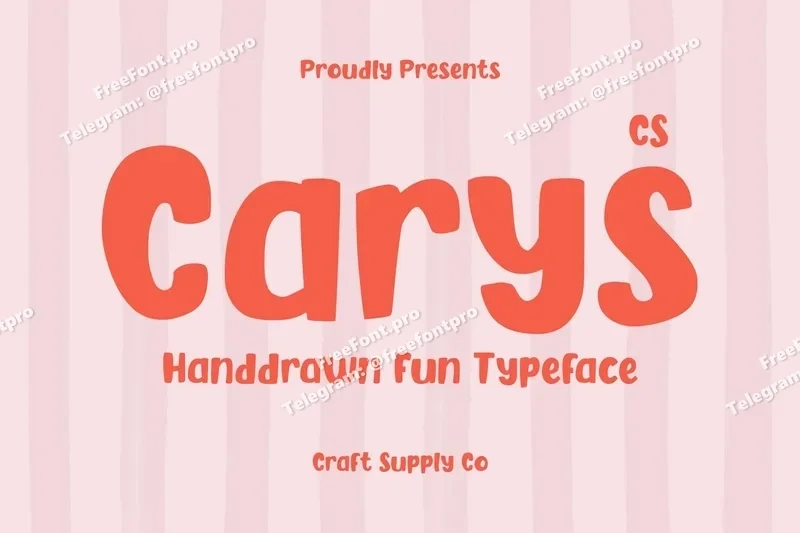
Carys – Playful Display Font
CS Carys – Playful Energy in Every Stroke: Fun Display Font with Bold and Friendly Shapes
Vibrant Personality for Youthful Designs This is a Playful display font that captures the spirit of fun and creativity. Its bold strokes and friendly curves radiate energy, making every letter feel alive and expressive. Designed to evoke joy and excitement, this font is perfect for youth-oriented projects that aim to stand out with confidence and charm.
Rounded Forms for a Cheerful Impression Every curve in this font is crafted with intention smooth, rounded, and approachable. These shapes give the font a cheerful, welcoming personality that connects instantly with viewers. Whether it’s for greeting cards, playful posters, or children’s materials, its soft yet strong structure ensures clarity and delight in every use.
Versatile for Fun Branding and Creative Concepts From casual logos to lifestyle products, this font adapts seamlessly across creative projects. Its balanced proportions maintain readability while its bold form adds personality, making it a great choice for designers seeking a typeface that’s both practical and full of life.
Perfect for Modern, Joyful Communication This font brings modern energy and warmth to your visual messages. It’s more than just a typeface it’s a voice that speaks with enthusiasm and friendliness. Ideal for youth branding, digital promotions, and everyday creative design, transforms simple text into a lively, memorable statement.